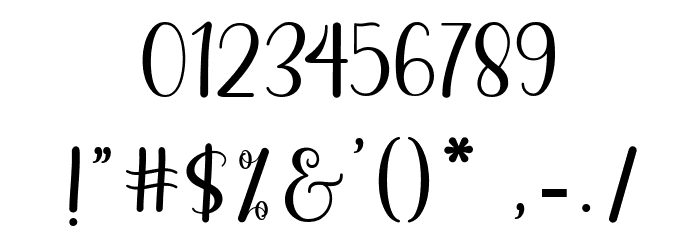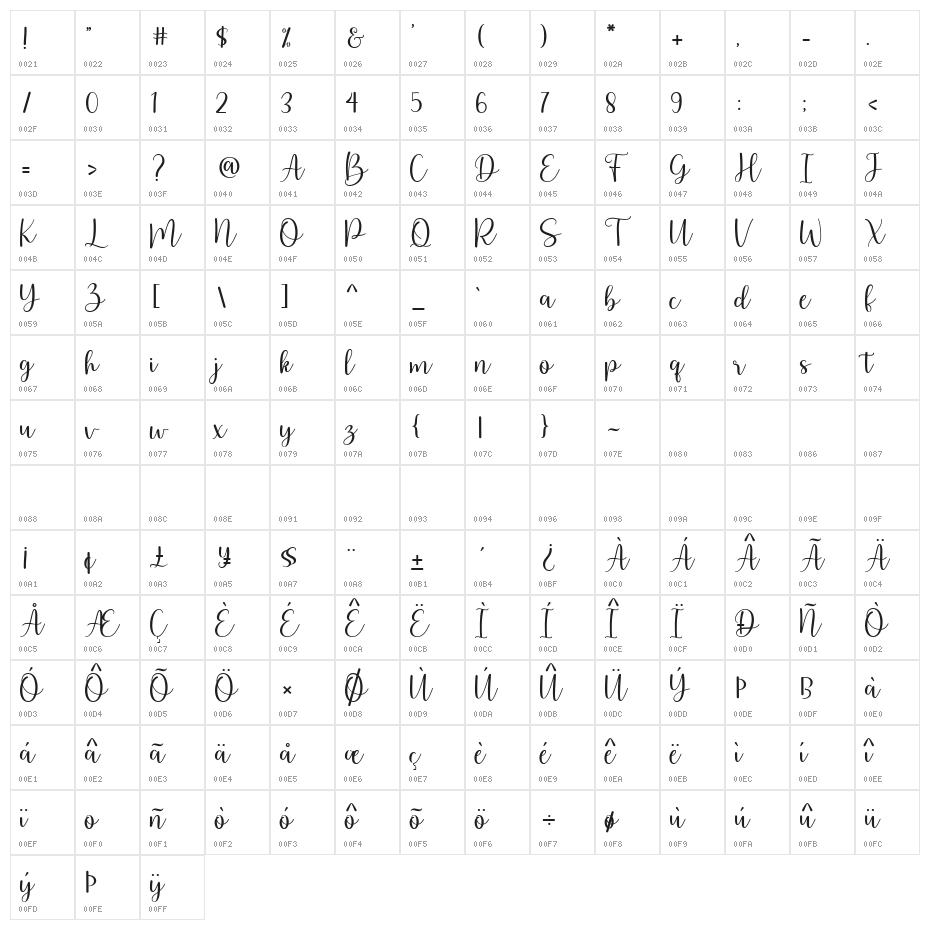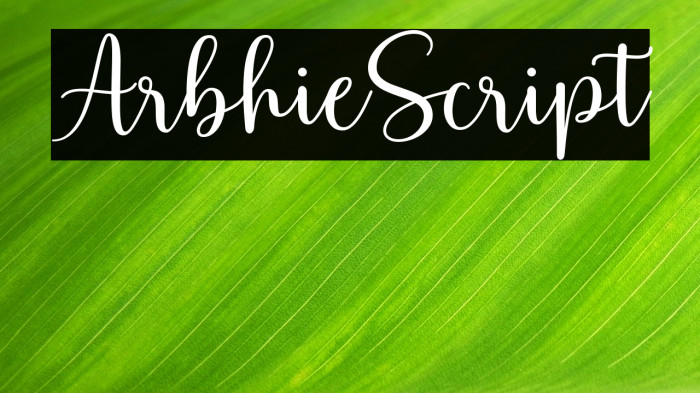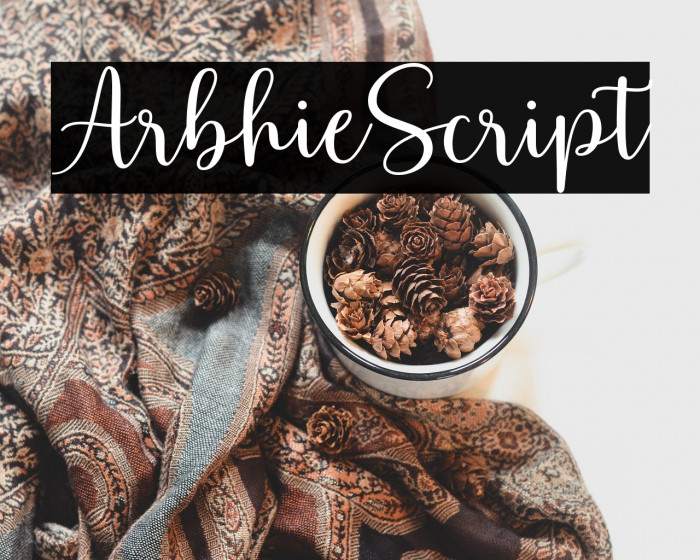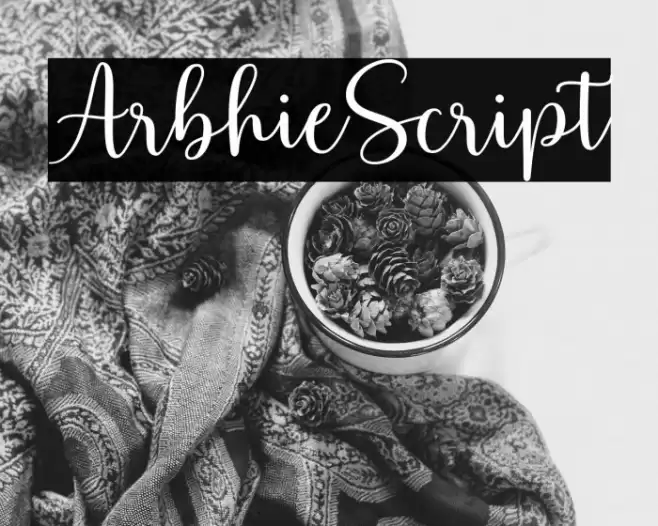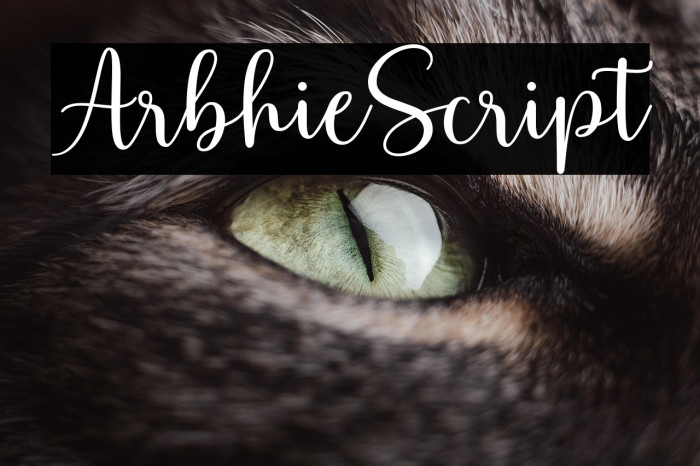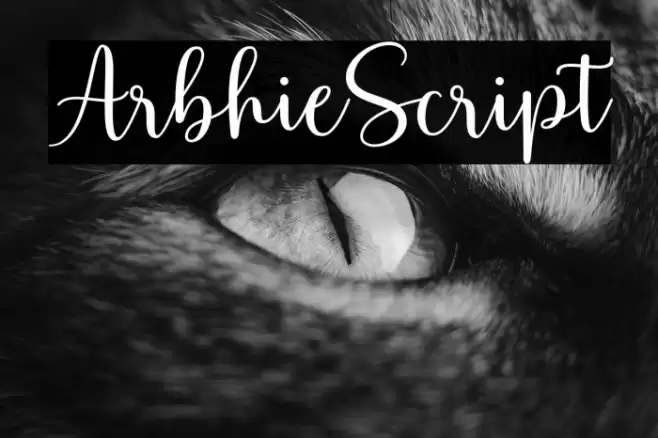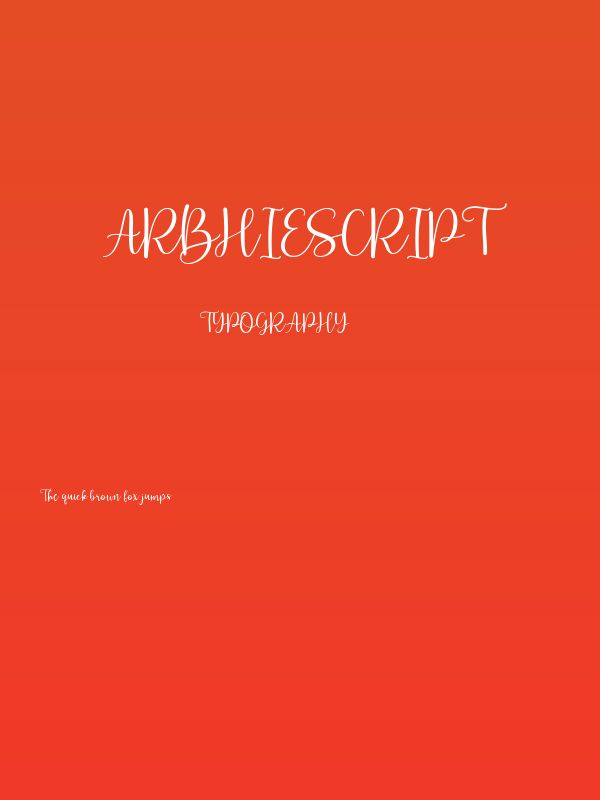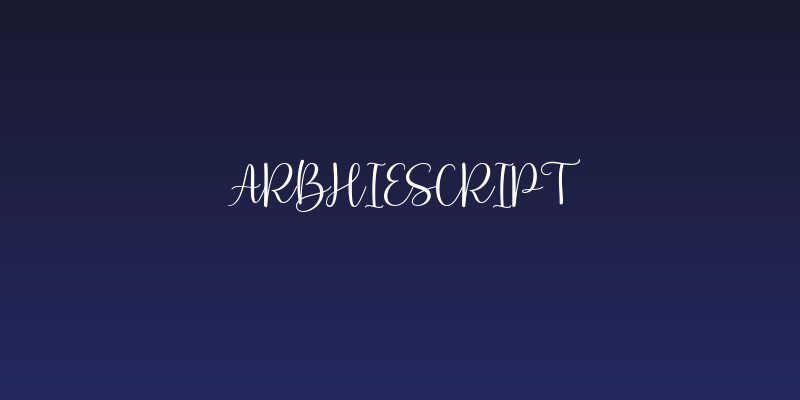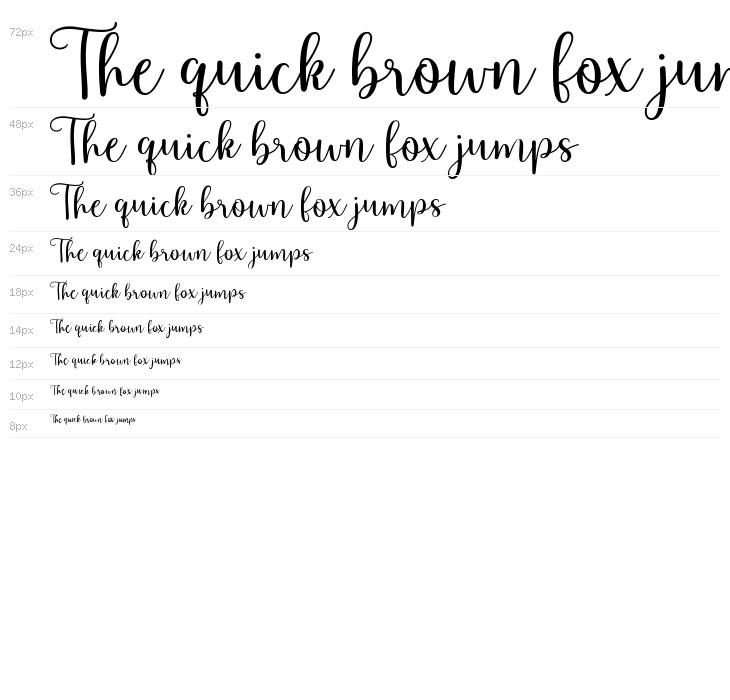
ArbhieScript Font
ArbhieScript Description
This font features an elegant, flowing script style with a modern touch. The uppercase letters are characterized by their sweeping curves and loops, giving a sense of movement and grace. The lowercase letters maintain a consistent flow, with some letters like 'g' and 'y' having distinctive tails that add to the font's charm. The numerals are clear and maintain the script style, ensuring readability. Special characters are well-integrated, matching the overall aesthetic. This font is perfect for projects that require a personal, handwritten feel, such as invitations, greeting cards, or branding materials.